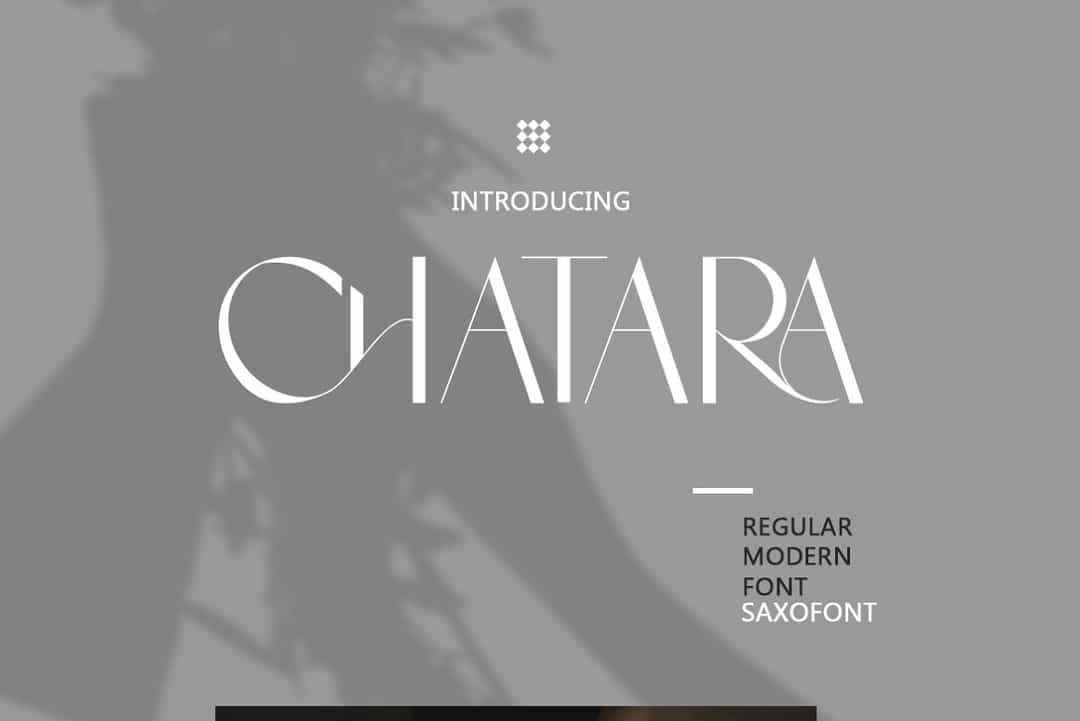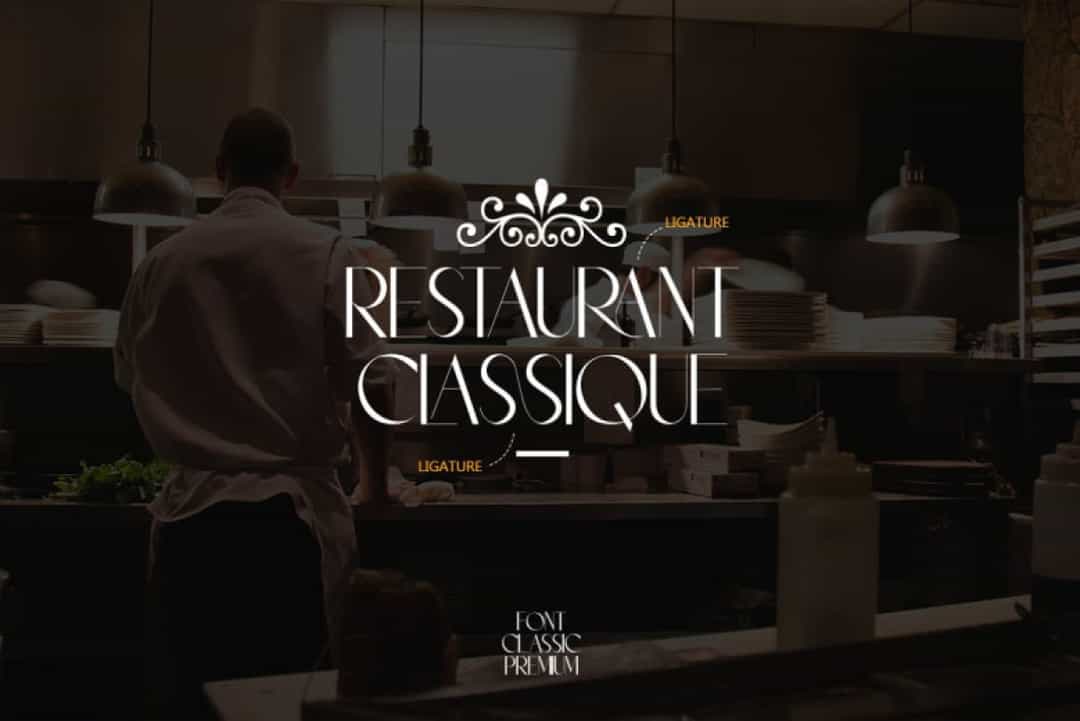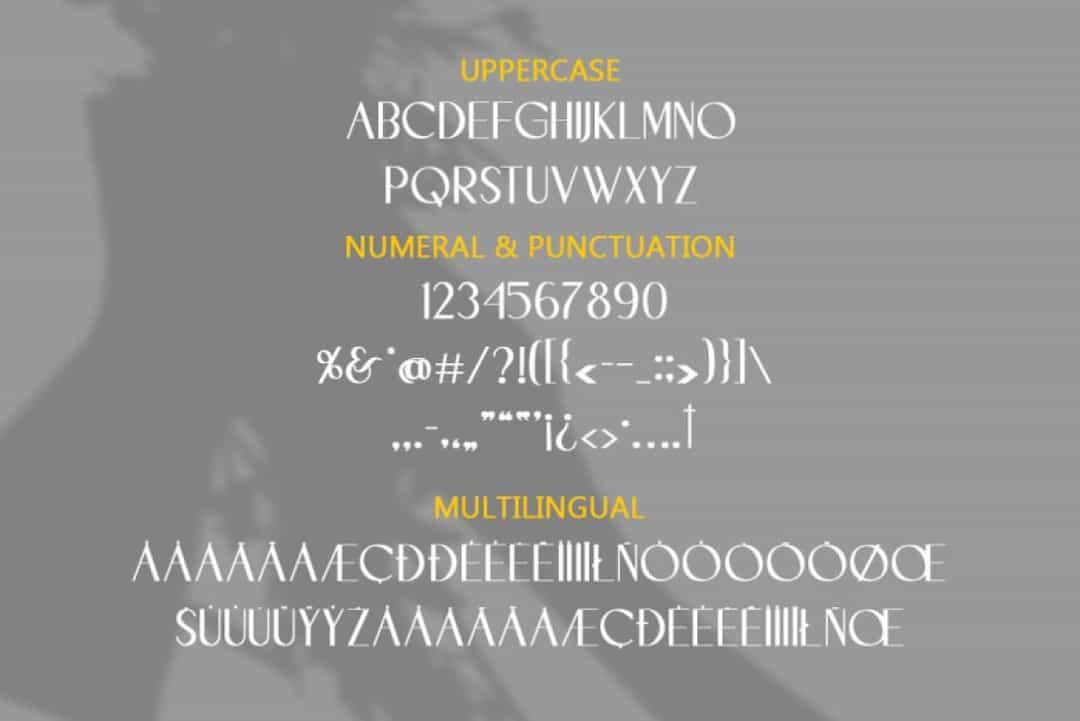
Discover Chatara Font, part of the Sans Serif collection—a versatile and unique font perfect for adding a personal touch to your projects. Download it for free and enjoy crafting designs with style, from invitations to social media posts. This font is available exclusively for personal use, giving you the freedom to create without limits. Unlock your creativity with Chatara Font today!
Chatara is an elegant sans-serif font that will elevate any work to new levels! PUA encoded, you have easy access to its glyphs, swashes and characters!